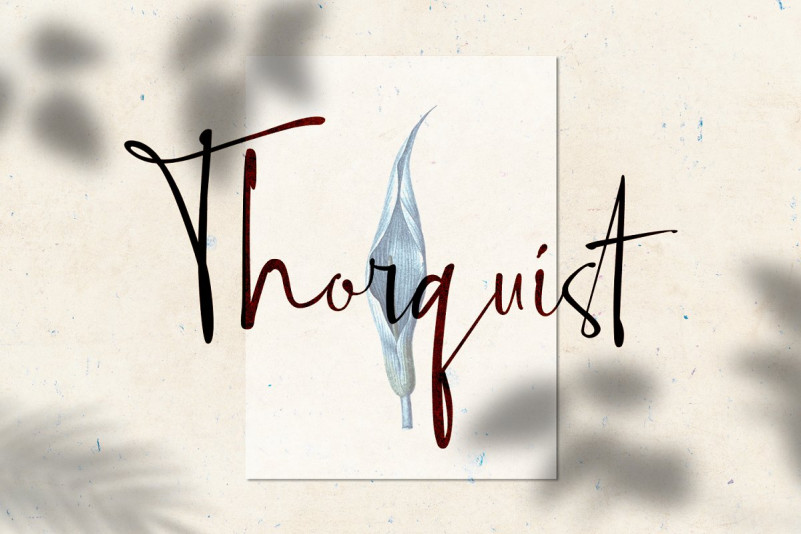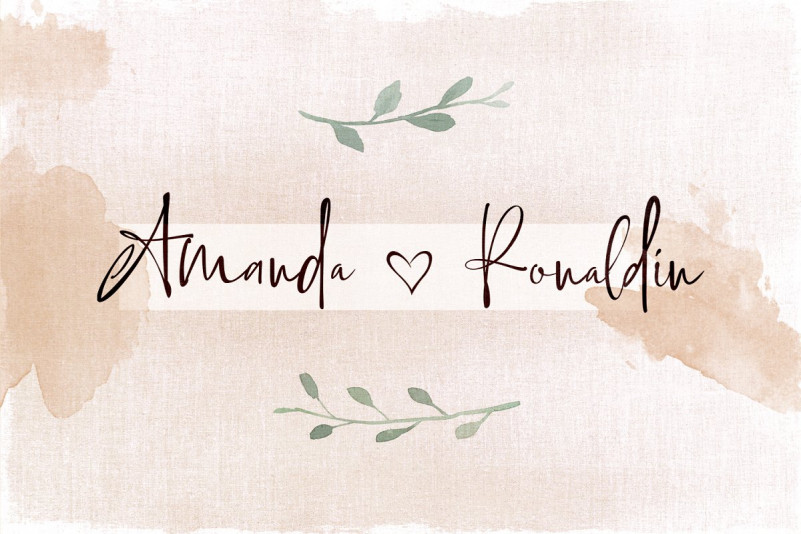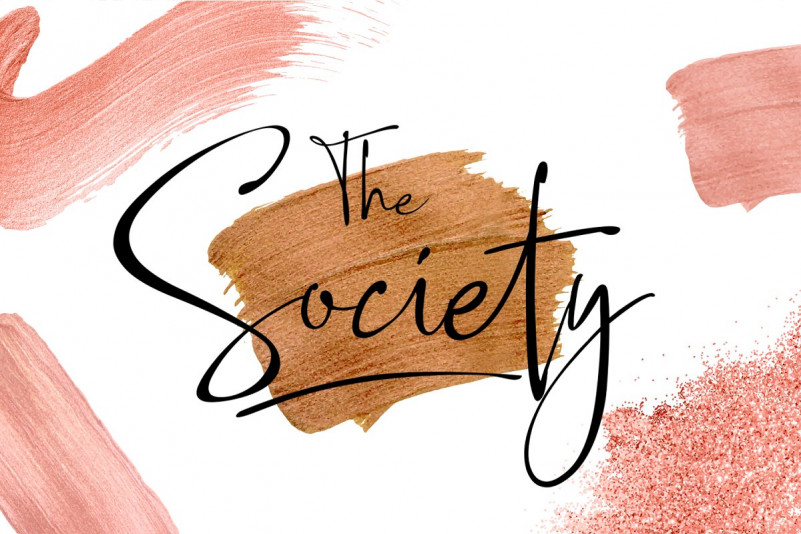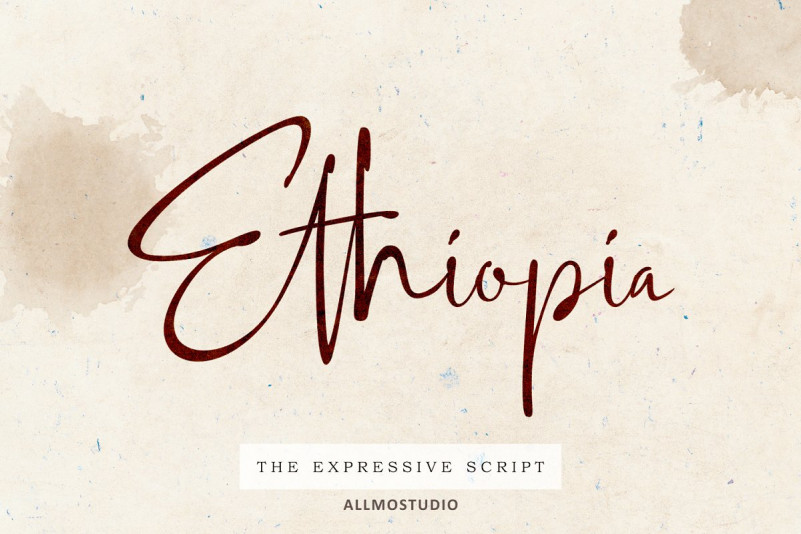
Ethiopia Script Font
Ethiopia Script Font – Simple elegant handwriting style lines. Inspired by signature and stylish handwriting, perfect for many different project. Ethiopia designed and shared by AllmoStudio. Ethiopia Script was made with a touch of elegance expressive, feminine and classy I’ve been created to make your design more awesome. perfectly for fashion, feminine brands, blogs, wedding boutiques or any business that wants to appear upscale and chic Ethiopia will work on any media, you can use it for logo, headline, typography poster, product packaging, or event your wedding invitation.